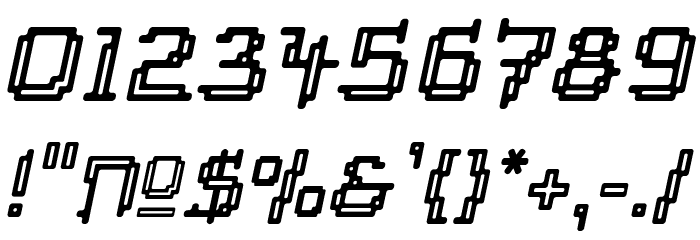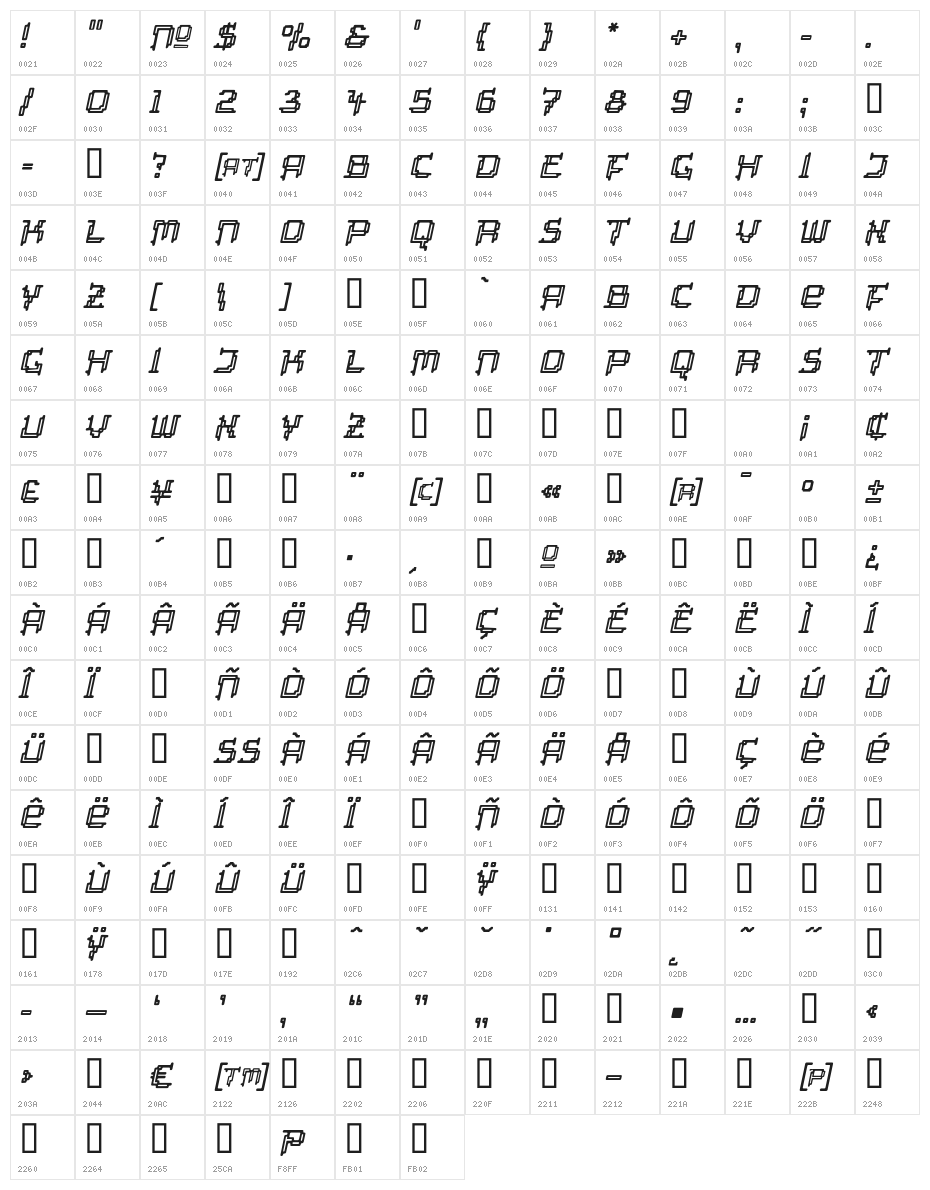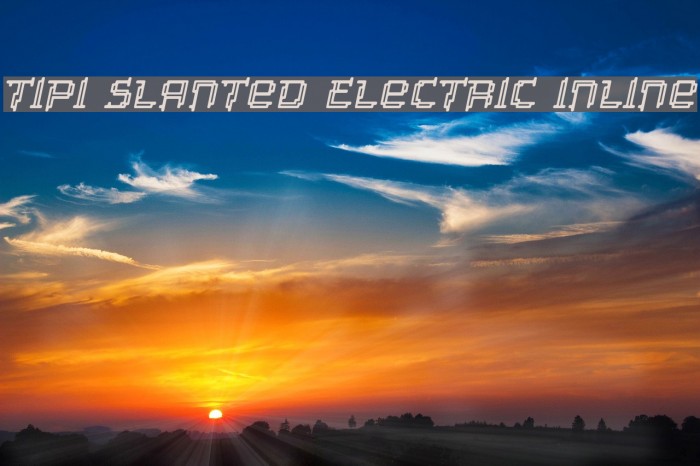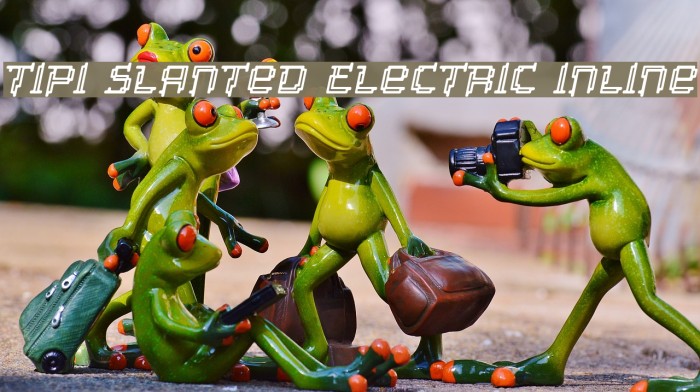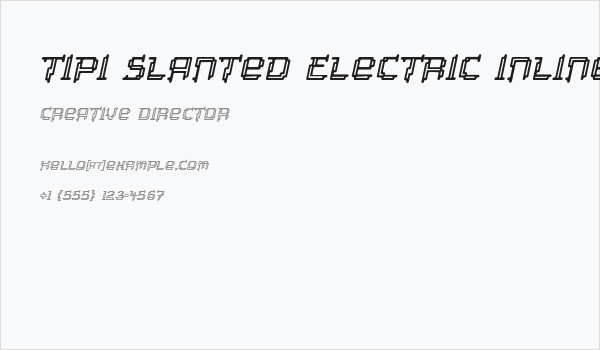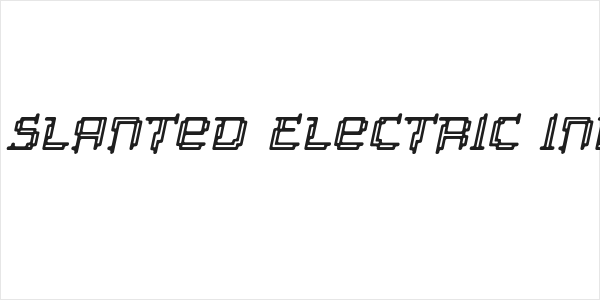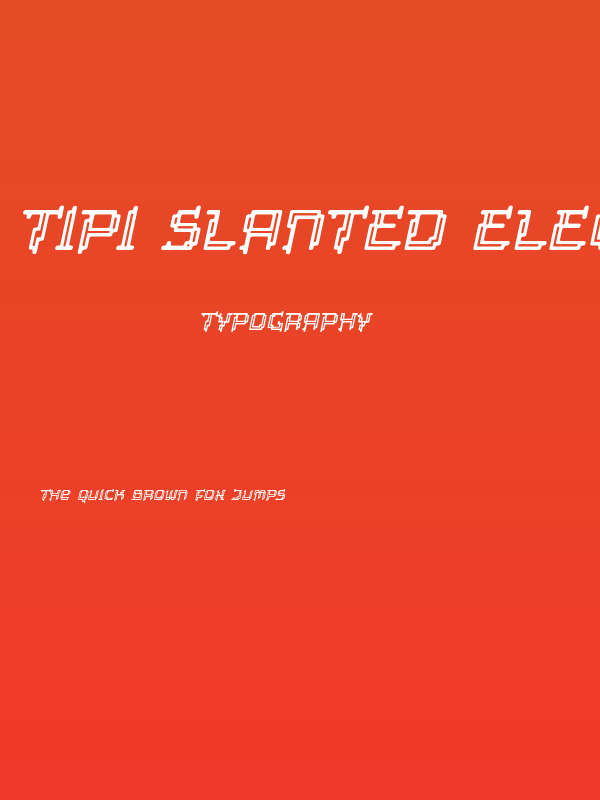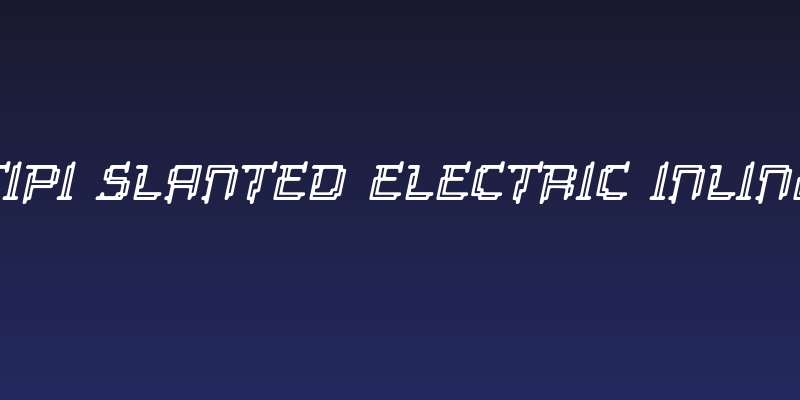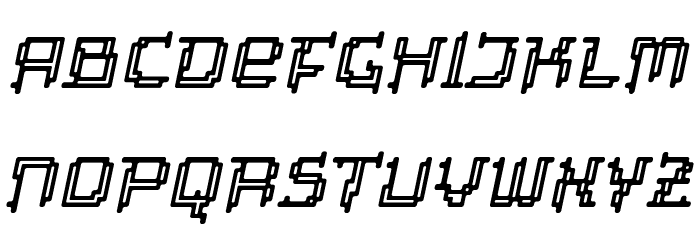
Tipi Slanted Electric Inline Font
Tipi Slanted Electric Inline Description
This font features a bold and dynamic design with a slanted, electric inline style. The characters are outlined with a double-line effect, creating a sense of movement and energy. The uppercase and lowercase letters maintain a consistent geometric structure, with sharp angles and a futuristic aesthetic. The numbers and special characters follow the same design principles, ensuring uniformity across all glyphs. This font is ideal for projects that require a modern and edgy look, such as tech-related branding or digital art.
| Proposed Projects | Ideal for tech branding, digital art, futuristic posters, and video game titles. |